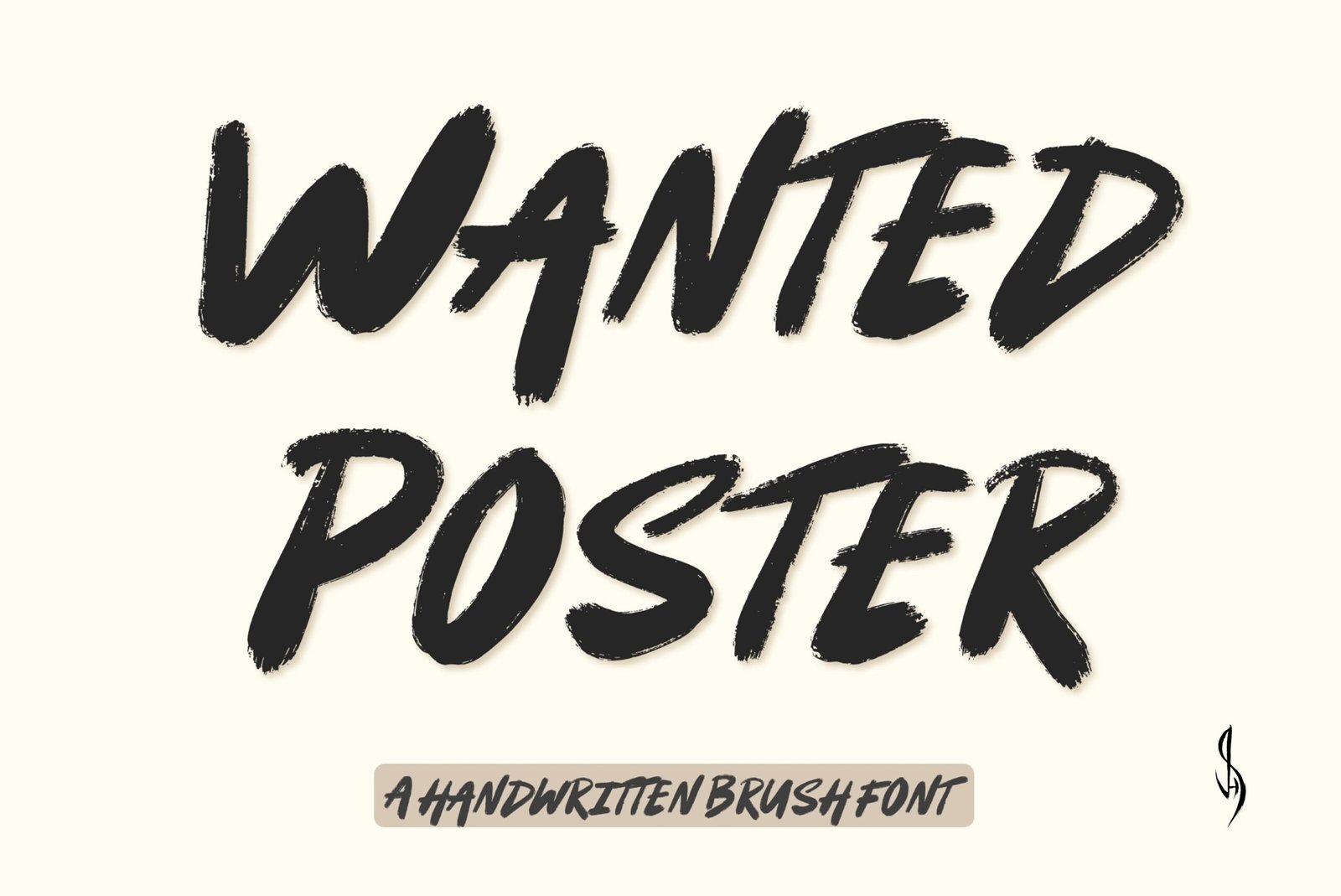
Wanted Poster Font
Handwritten brush font. “Wanted Poster”. Perfect for advertising and display purposes, including banners, book covers, shirts, posters, logos and much more!
This is an ALL CAPS font, featuring numbers, characters, punctuation and accent characters.